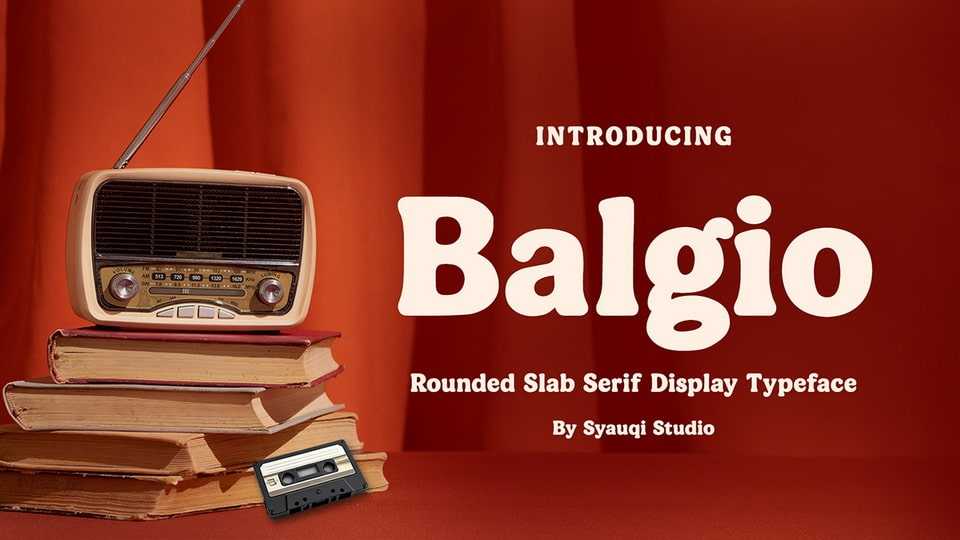
Download Balgio font, a bold rounded slab serif typeface that merges modern softness with timeless strength designed with smooth terminals, sturdy serifs, and low contrast strokes.
Designer: Syauqi Studio